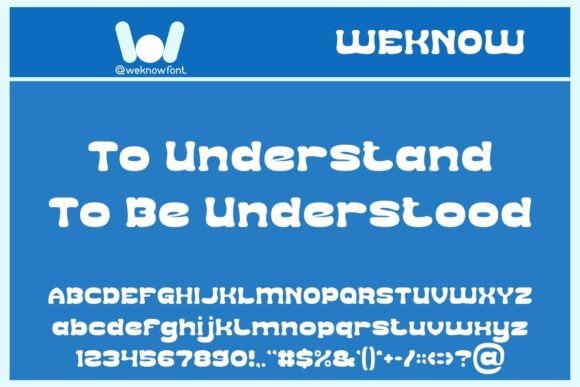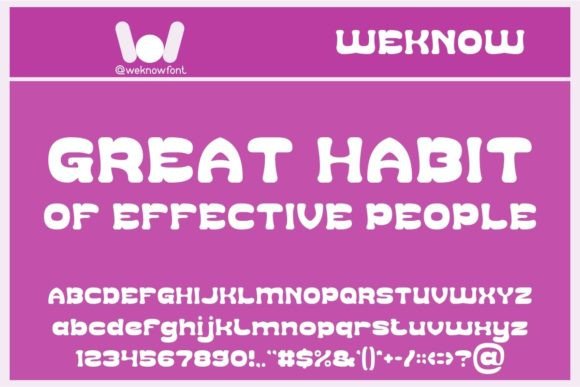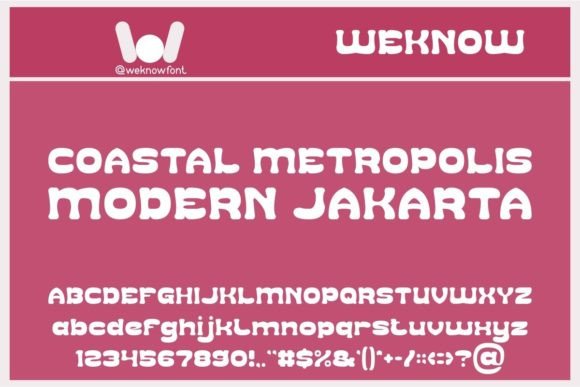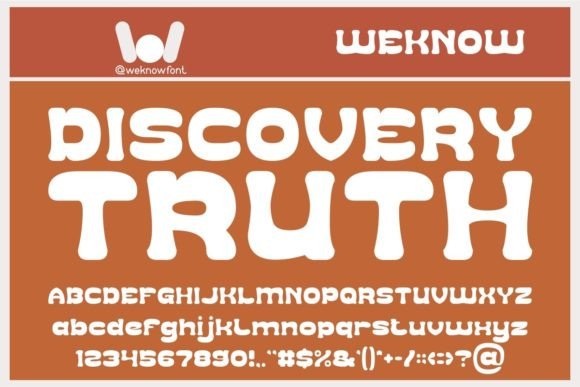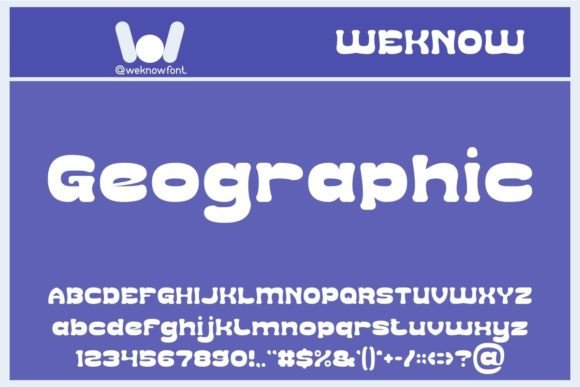
Introducing Geographic: The Ultimate Display Font for Creative Projects
Are you tired of using the same old fonts for your design projects? Look no further than Geographic, a fancy and cool display font that’s perfect for making a statement. Whether you’re working on a logo, logotype, headline, or any other creative project, Geographic is the ideal choice. In this article, we’ll explore the features and benefits of Geographic, and show you how it can elevate your designs to the next level.
What is Geographic?
Geographic is a stylish and modern display font that’s designed to grab attention. With its unique and elegant lettering style, it’s perfect for creating stunning visual identities for brands, products, and services. The font features a distinctive geometric shape, which gives it a modern and edgy feel that’s sure to stand out in any design.
Key Features of Geographic
- Unique Lettering Style: Geographic boasts a distinctive lettering style that’s both elegant and modern.
- Geometric Shape: The font’s geometric shape gives it a edgy and contemporary feel that’s perfect for designs that require a bit of attitude.
- Highly Versatile: Geographic is suitable for a wide range of design projects, from logos and branding to headlines and posters.
- Easy to Read: Despite its stylized appearance, Geographic is highly legible, making it perfect for use in body text as well as headlines.
Use Cases for Geographic
So, what can you use Geographic for? The possibilities are endless! Here are some ideas to get you started:
- Logo Design: Create a stunning logo for your brand or business with Geographic.
- Logotype: Use Geographic to create a custom logotype that reflects your brand’s personality.
- Headlines: Add some drama and flair to your headlines with Geographic.
- Corporate Identity: Use Geographic to create a cohesive visual identity for your company.
- Brand Identity: Develop a unique brand identity with Geographic that’s sure to stand out.
- Apparel Industry: Create eye-catching apparel designs with Geographic.
- Posters: Design stunning posters with Geographic that grab attention.
- Music, Movie, and Game: Use Geographic to create bold and eye-catching titles for music, movie, and game projects.
- Magazine and Book: Add some style to your magazine or book with Geographic.
- Comic and Cartoon: Create fun and playful designs with Geographic.
- YouTube and Instagram: Use Geographic to create engaging thumbnails and titles for your YouTube and Instagram content.
- Websites: Add some personality to your website with Geographic.
Why Choose Geographic?
So, why should you choose Geographic for your design projects? Here are just a few reasons:
- Unique Style: Geographic offers a unique and stylish lettering style that’s sure to stand out.
- Highly Versatile: The font is suitable for a wide range of design projects.